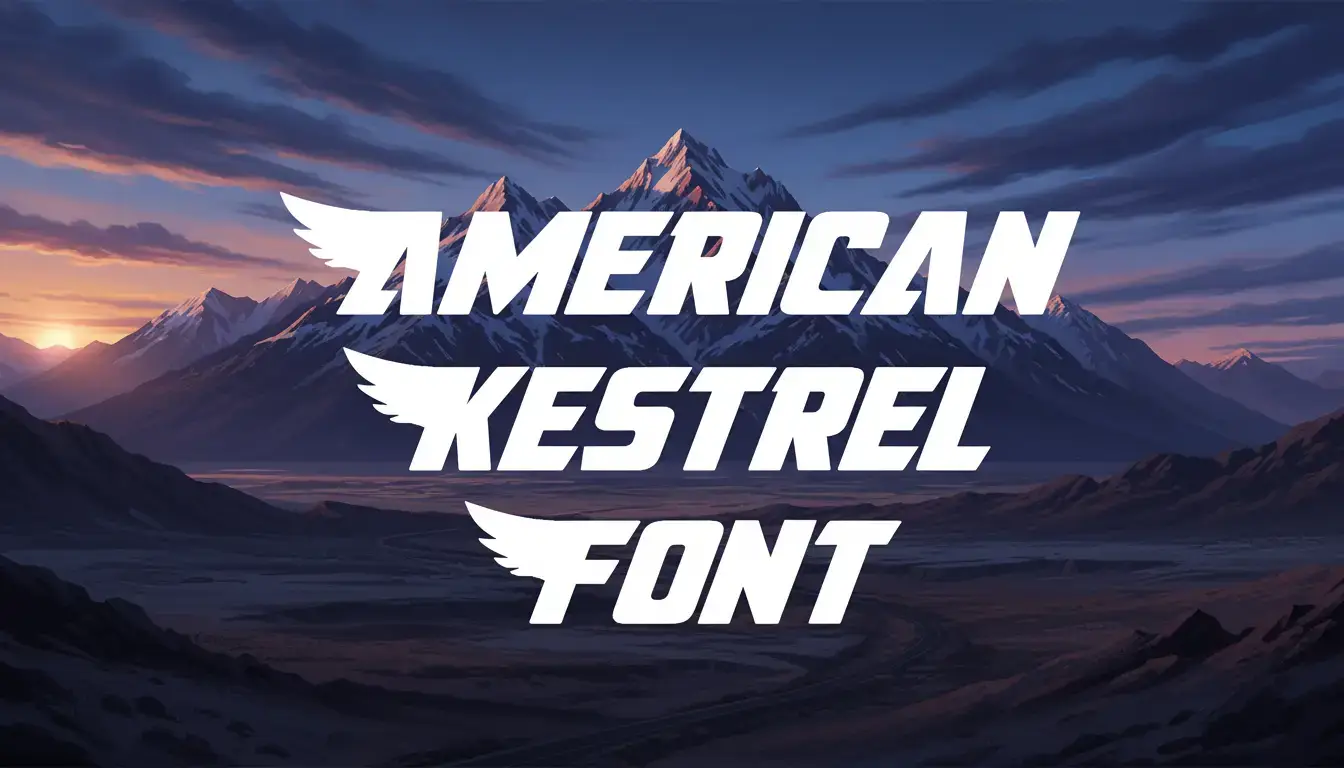
American Kestrel Font
Dan Zadorozny designed American Kestrel, a highly versatile, futuristic display typeface, and released it through Iconian Fonts. Built with sharp geometric structures, creators highly favor it for sci-fi branding, modern gaming titles, high-speed sports graphics, and techno-inspired promotional artwork.
American Kestrel Font Preview
American Kestrel is a techno font designed by Daniel Zadorozny. Squared-off, geometric letters give it a digital, high-tech feel. You get four styles in one free ZIP, and the preview above lets you test each one before you download.
What You Can Type With American Kestrel
You get every letter from A to Z in both cases and all the numbers from 0 to 9, which means American Kestrel can handle full sentences, dates and prices. Common punctuation such as &, !, ? and @ is included as well. It also has the accented letters you need for Spanish, French, German, Portuguese and Italian.
Where American Kestrel Works Best
Designers usually reach for fonts like American Kestrel when they're making gaming logos, tech branding and futuristic posters. Try it on a dark background with a bright accent color for a sharp, modern look. Because the family has more than one style, you can mix them in a single design for headings, subheadings and highlights.
Does American Kestrel support accented letters?
Yes. American Kestrel includes the accented letters needed for Spanish, French, German, Portuguese and Italian, so it works for more than just English.
What fonts pair well with American Kestrel?